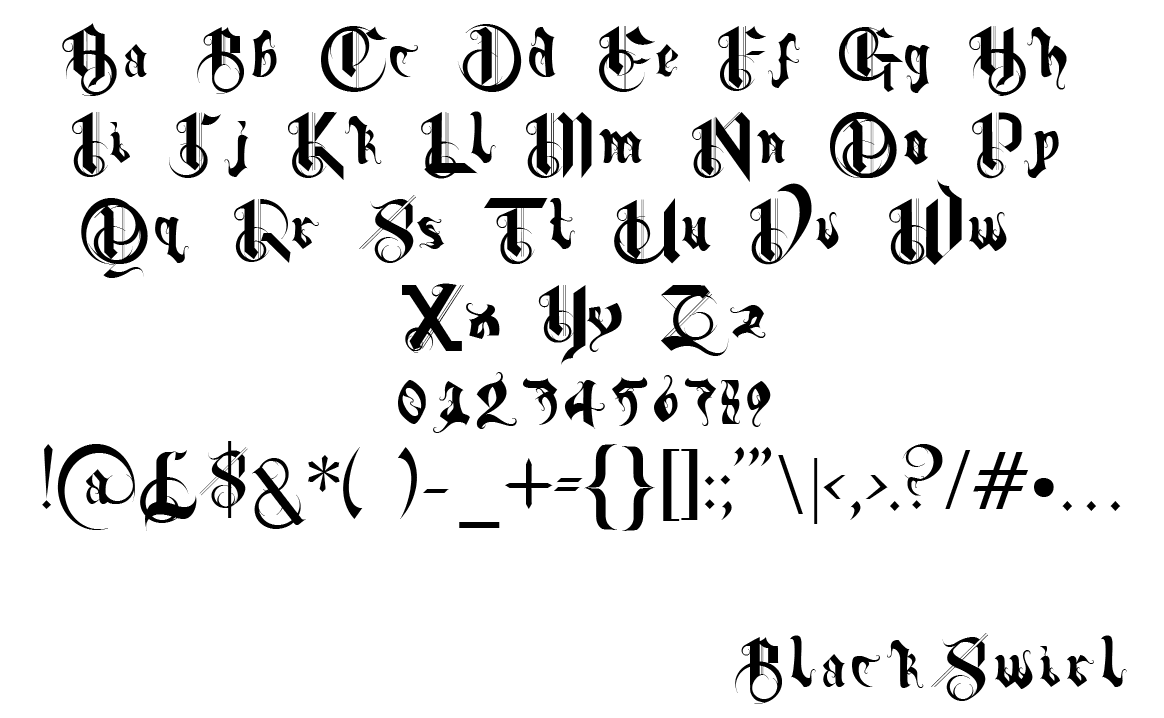
My unfinished Blackletter font. The lowercase shown here is no longer in production. It has been scrapped and replaced with a newer, cleaner version, which is better for print.